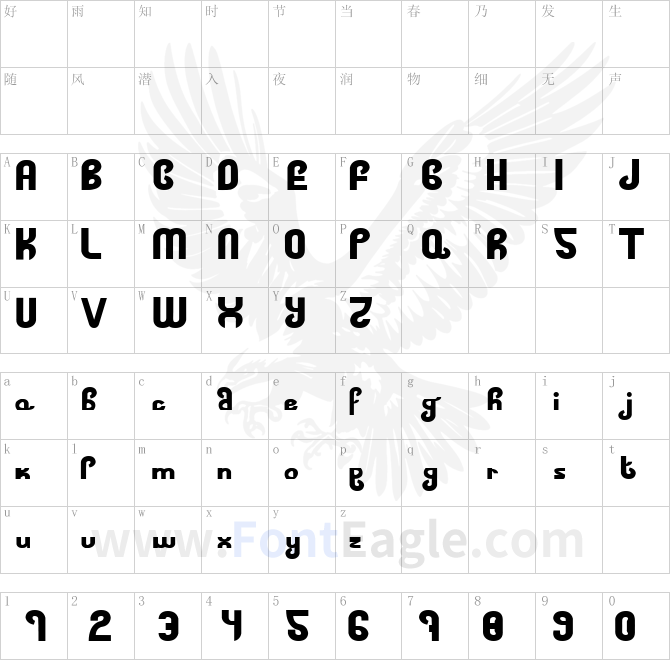
- Font name:Fat Vodka
Fat-Vodka is a great font, widely used in graphic design, single-page menu design, poster design and other fields, and is deeply loved by designers.Fat-Vodka download.